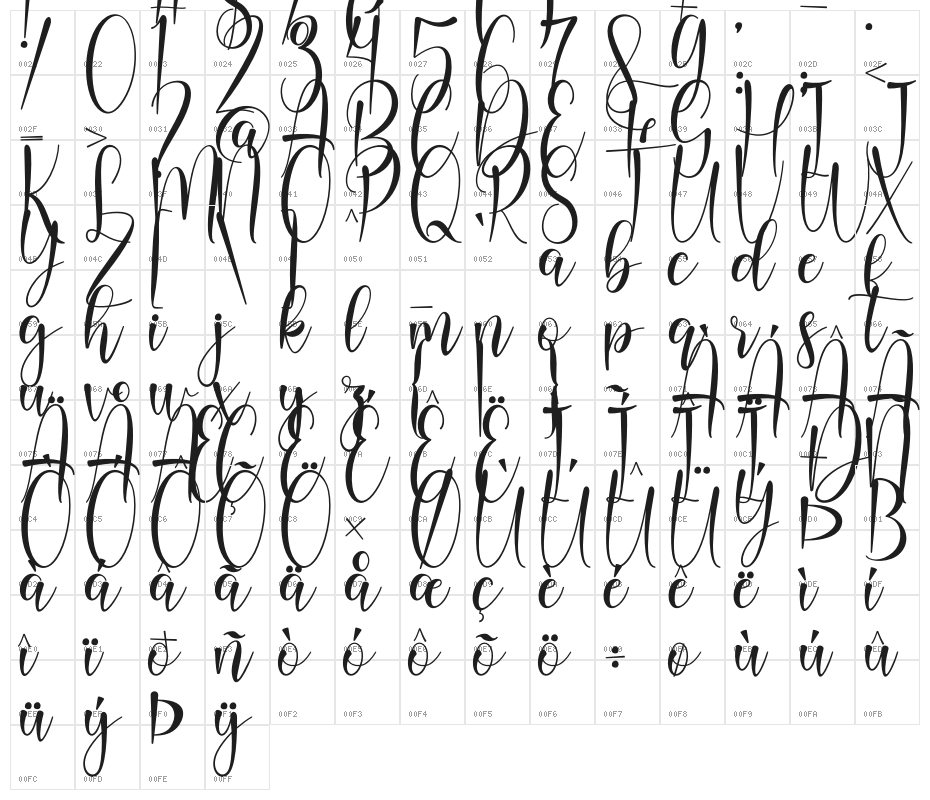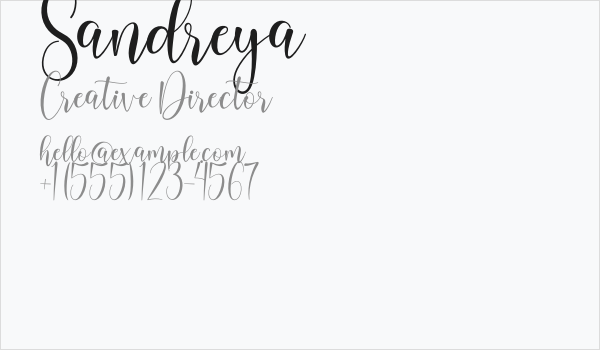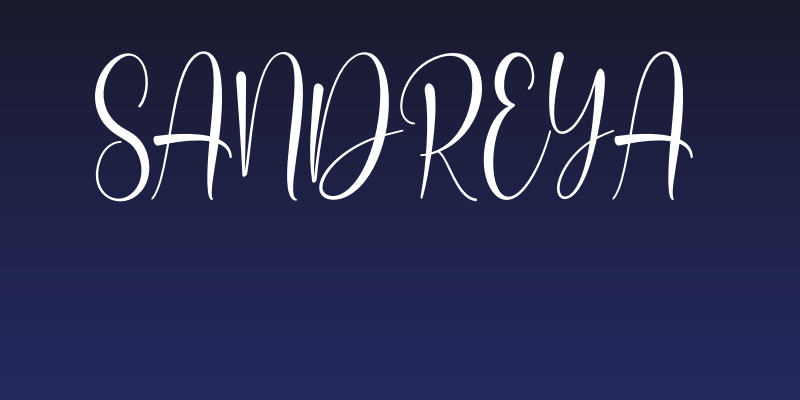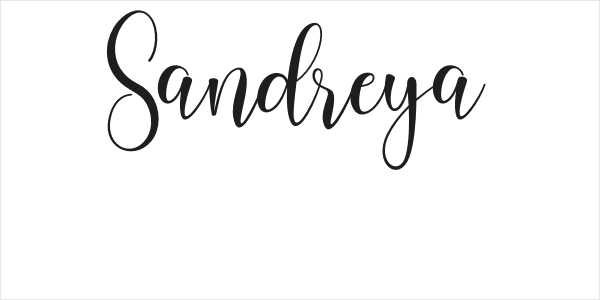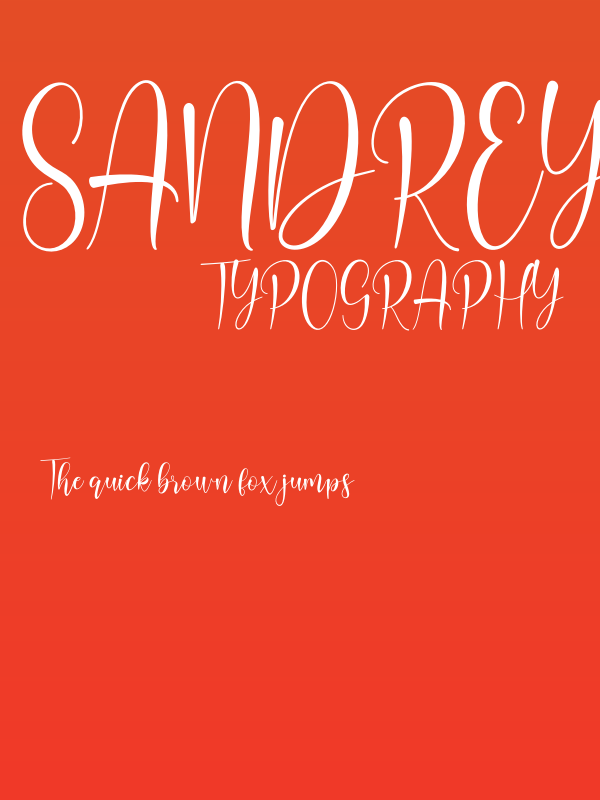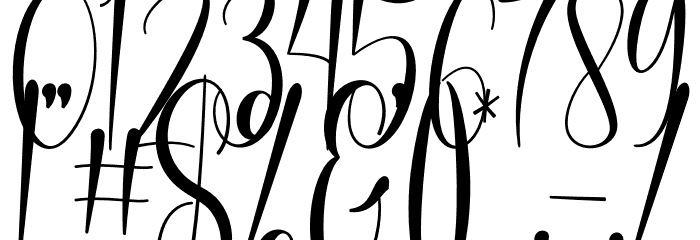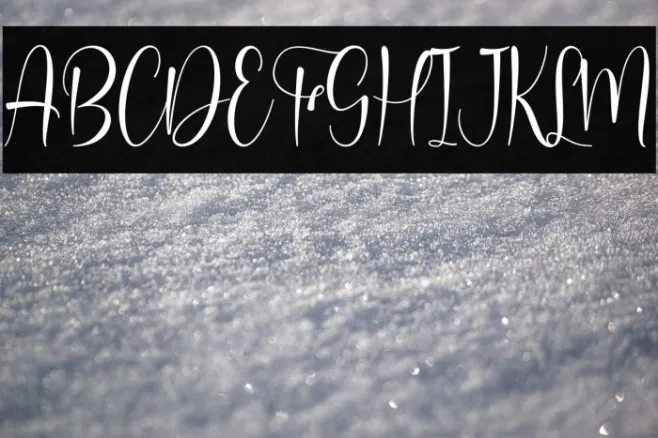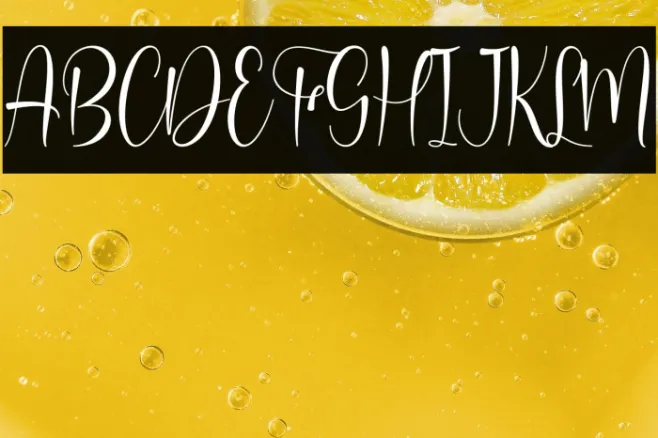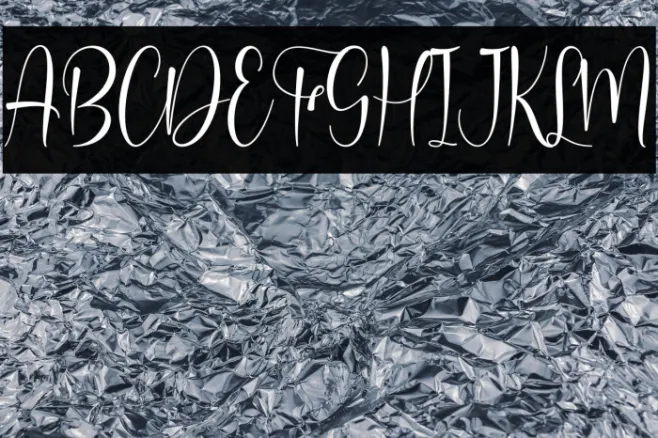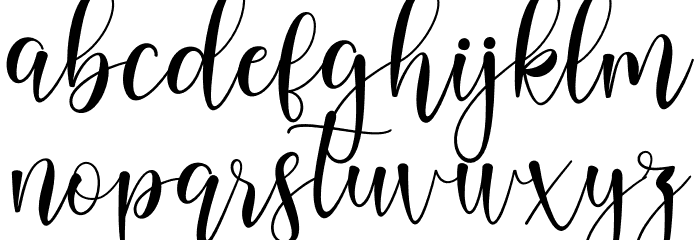
Sandreya Font
Sandreya Description
This font features an elegant and flowing script style, characterized by its smooth, cursive lines and graceful curves. The uppercase letters are tall and slender, with distinctive loops and swashes that add a touch of sophistication. The lowercase letters maintain a consistent flow, enhancing readability while retaining an artistic flair. The numbers and special characters are designed to complement the overall aesthetic, with similar fluid strokes and ornamental details. This font exudes a sense of elegance and creativity, making it suitable for a variety of design projects.
| Proposed Projects | Ideal for wedding invitations, branding, greeting cards, and elegant packaging designs. |